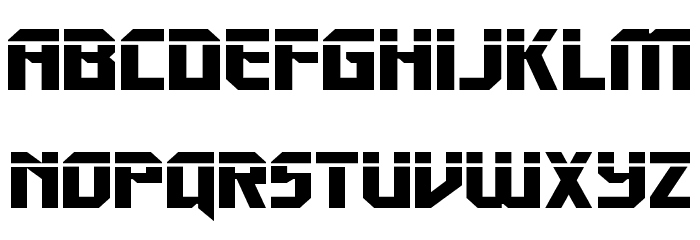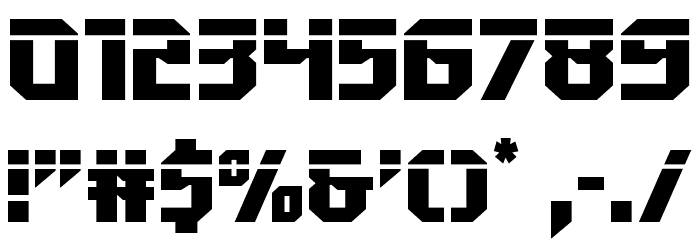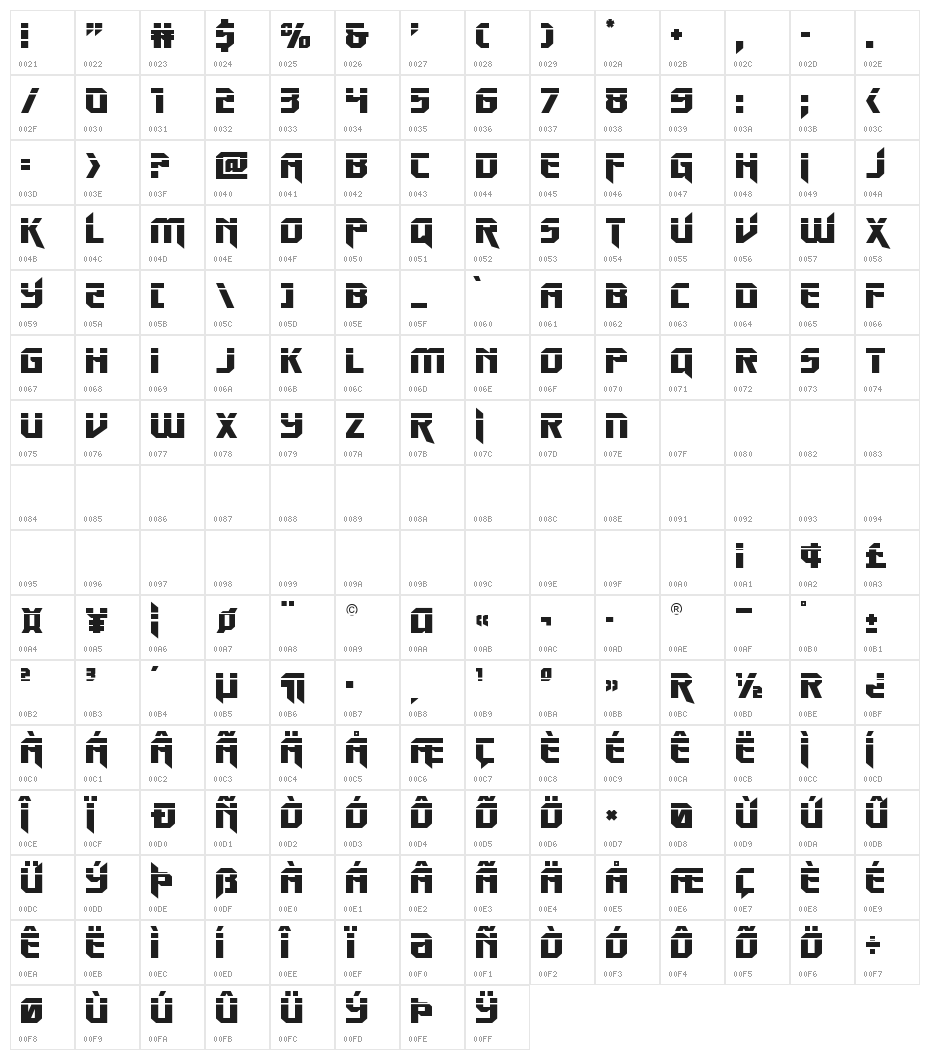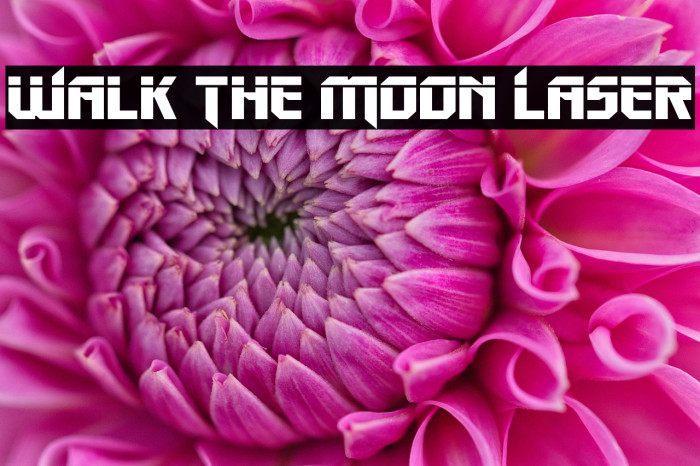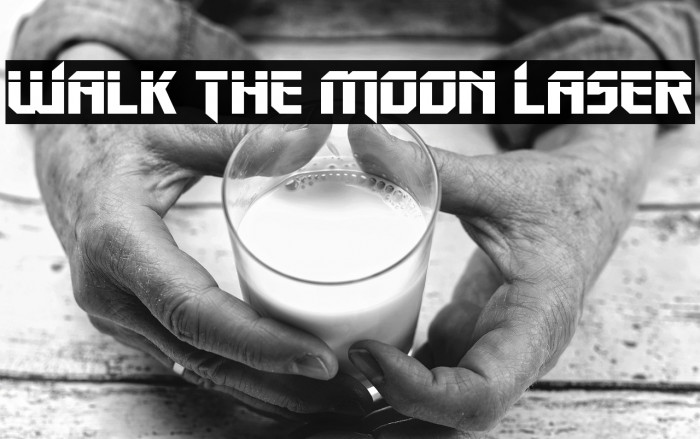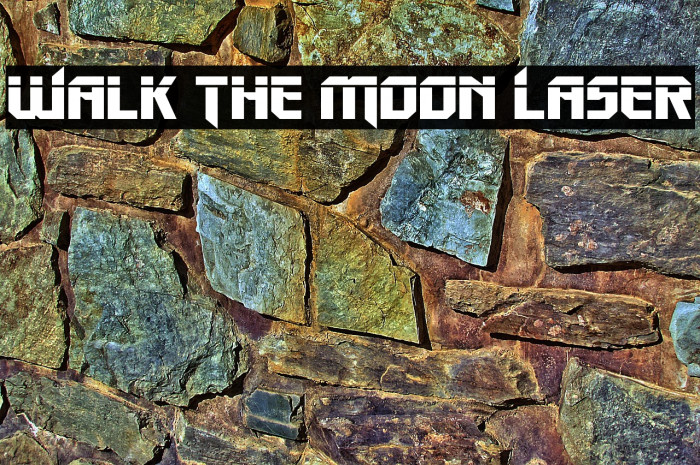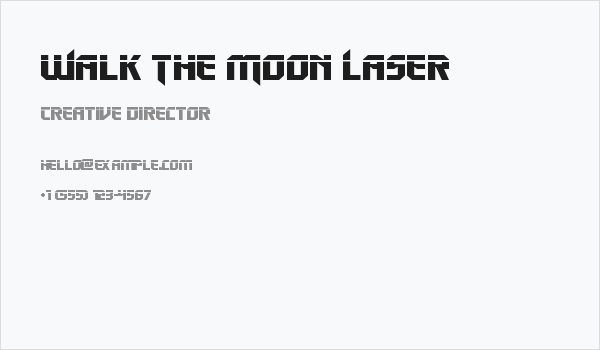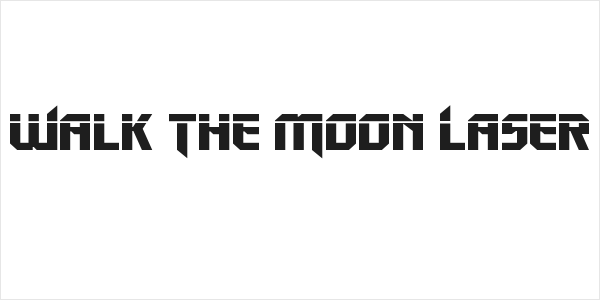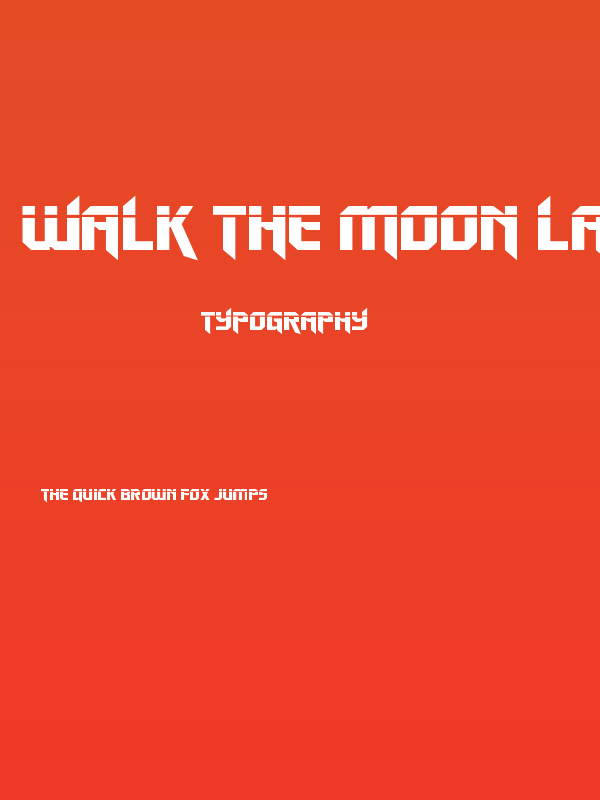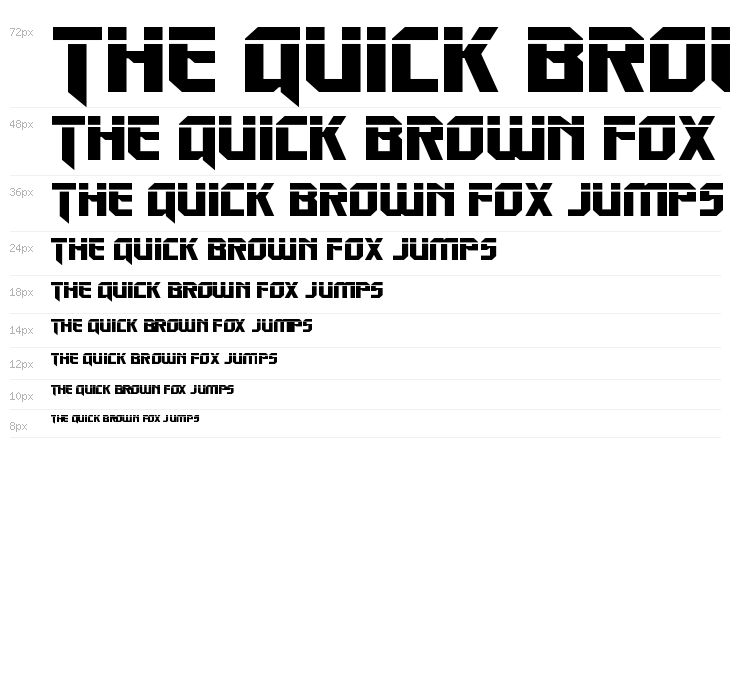
Walk The Moon Laser Font
This font features a bold, futuristic design with sharp angles and geometric shapes. The characters are constructed with a consistent thickness, giving it a uniform and cohesive appearance. The style is reminiscent of digital or sci-fi themes, making it ideal for projects that require a modern and edgy look. The uppercase and lowercase letters share similar characteristics, maintaining the font's distinct style across all characters. The numbers and special characters are designed to match the overall aesthetic, ensuring a seamless integration in any design. The font's boldness and unique style make it stand out, perfect for attention-grabbing headlines or logos.
A bold, futuristic font with sharp angles and geometric shapes.
- Proposed Projects: Ideal for sci-fi themed designs, video game graphics, tech company logos, and futuristic posters.
- Overall Style: Futuristic